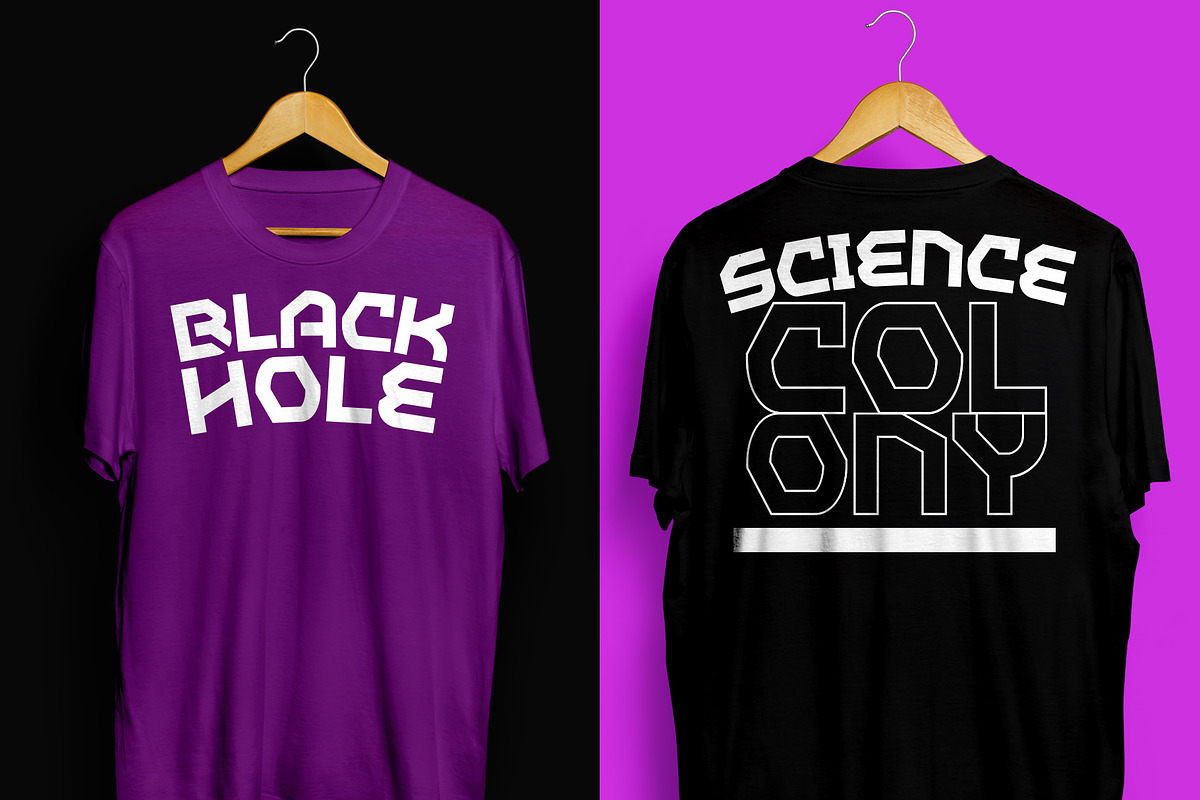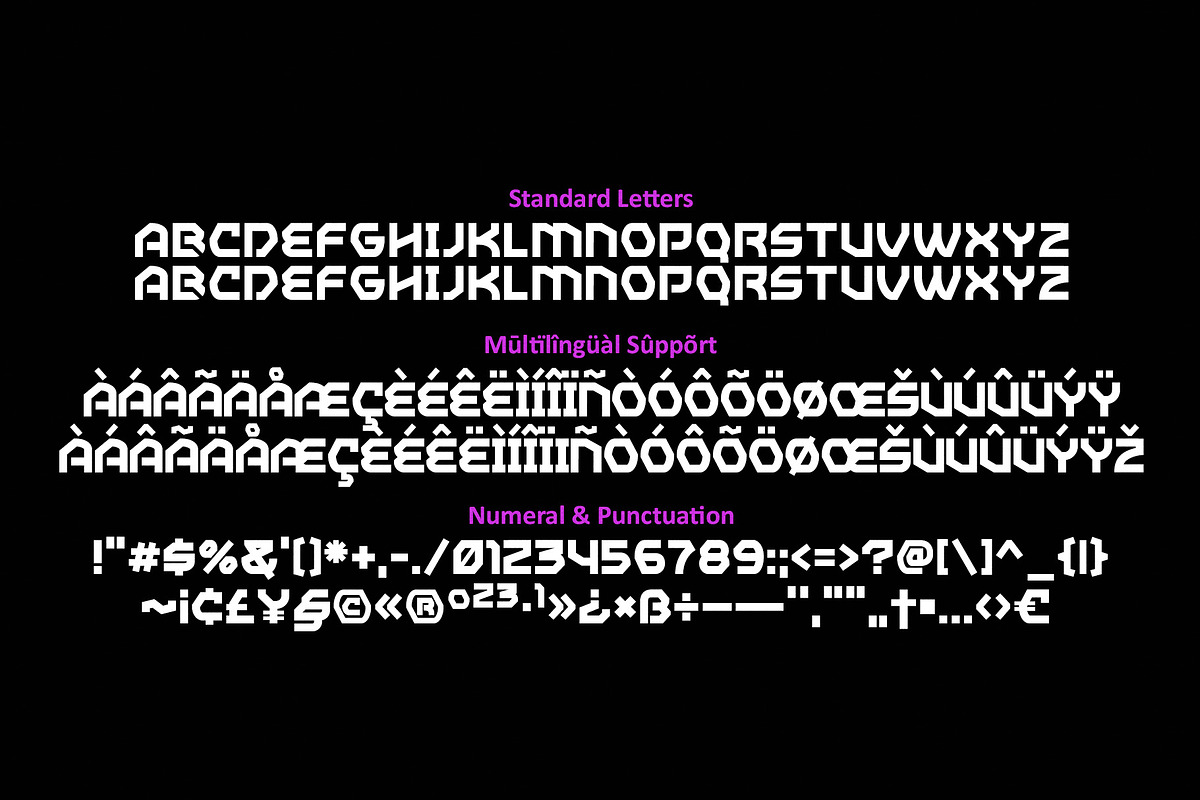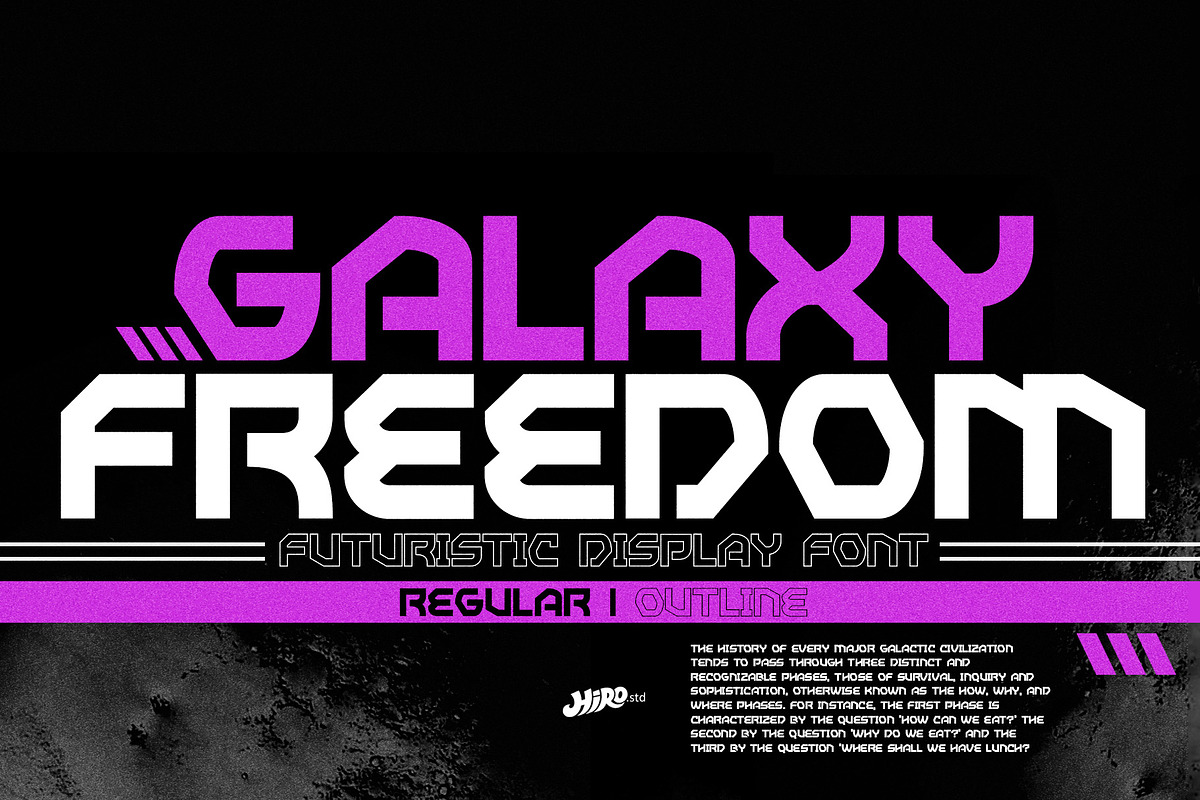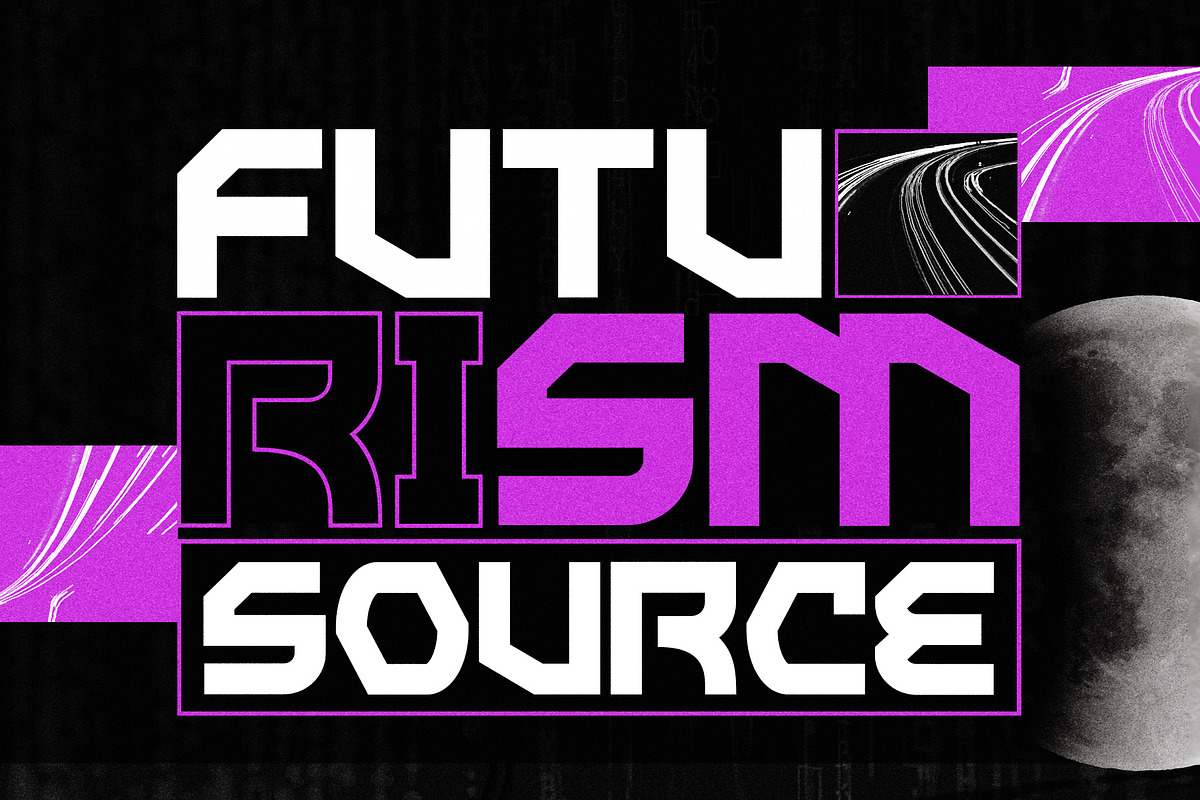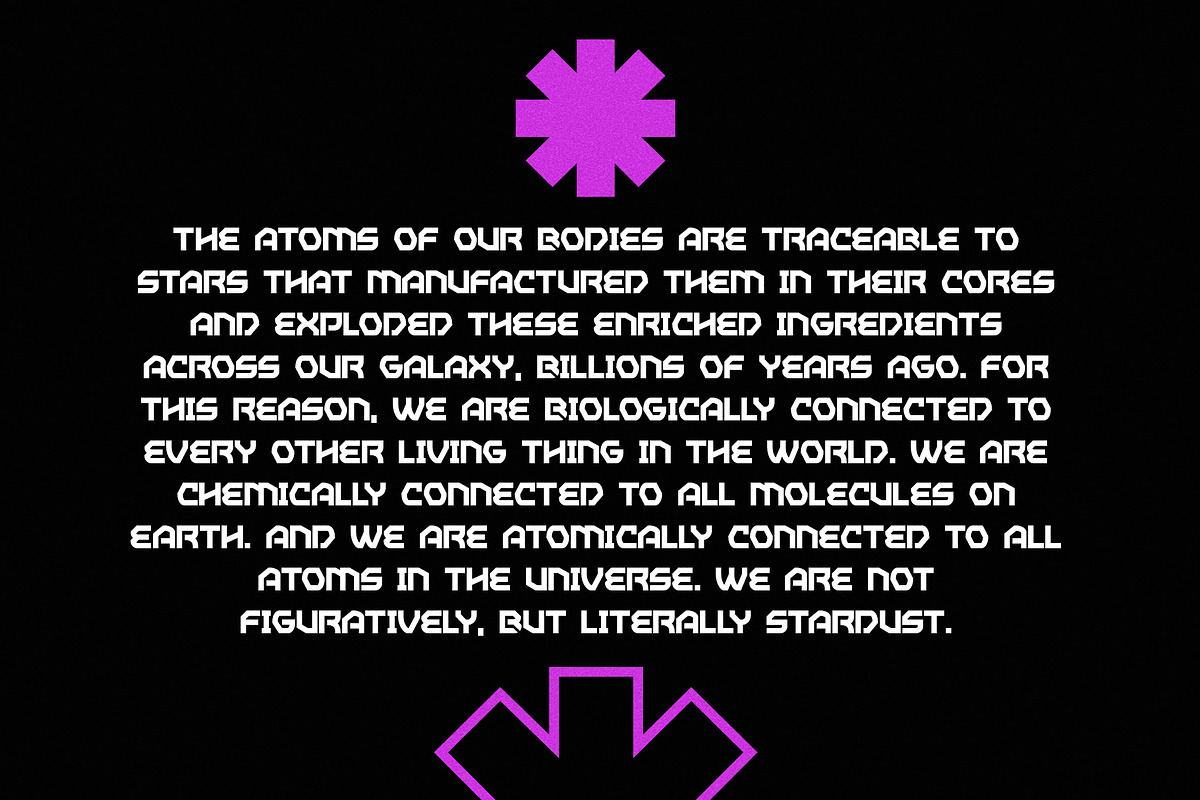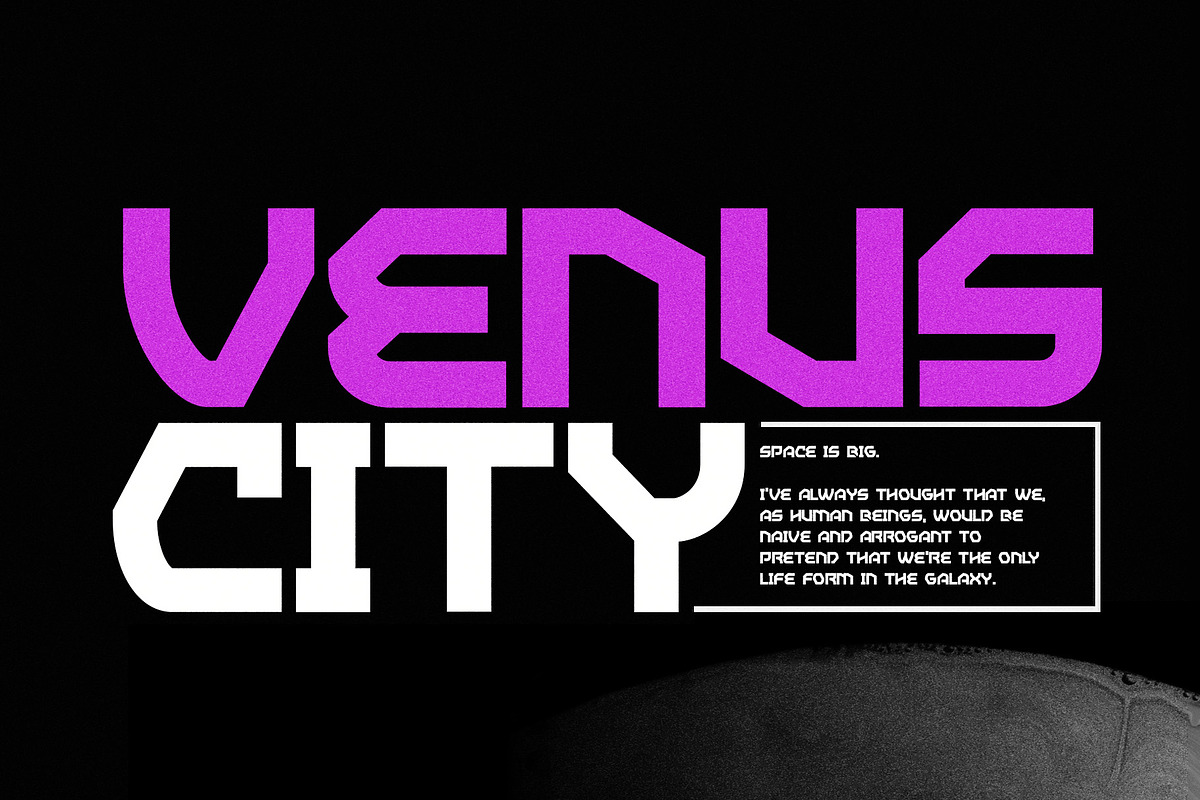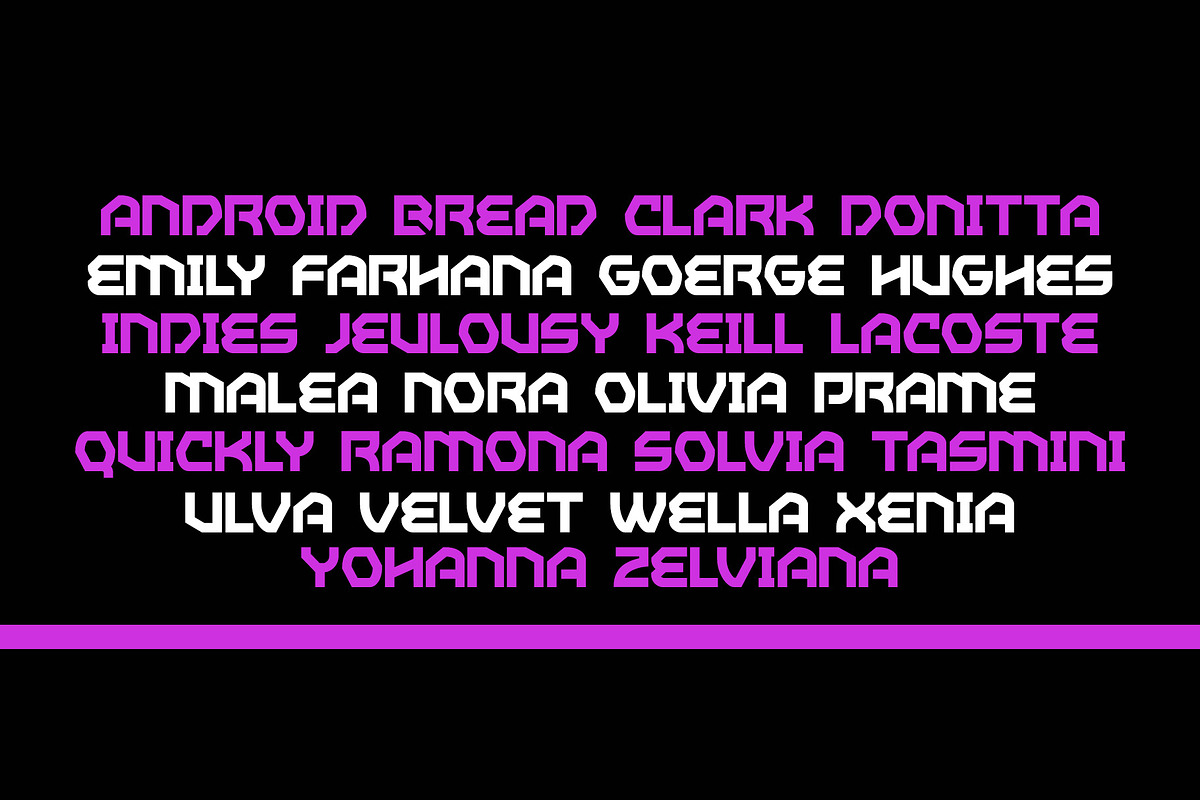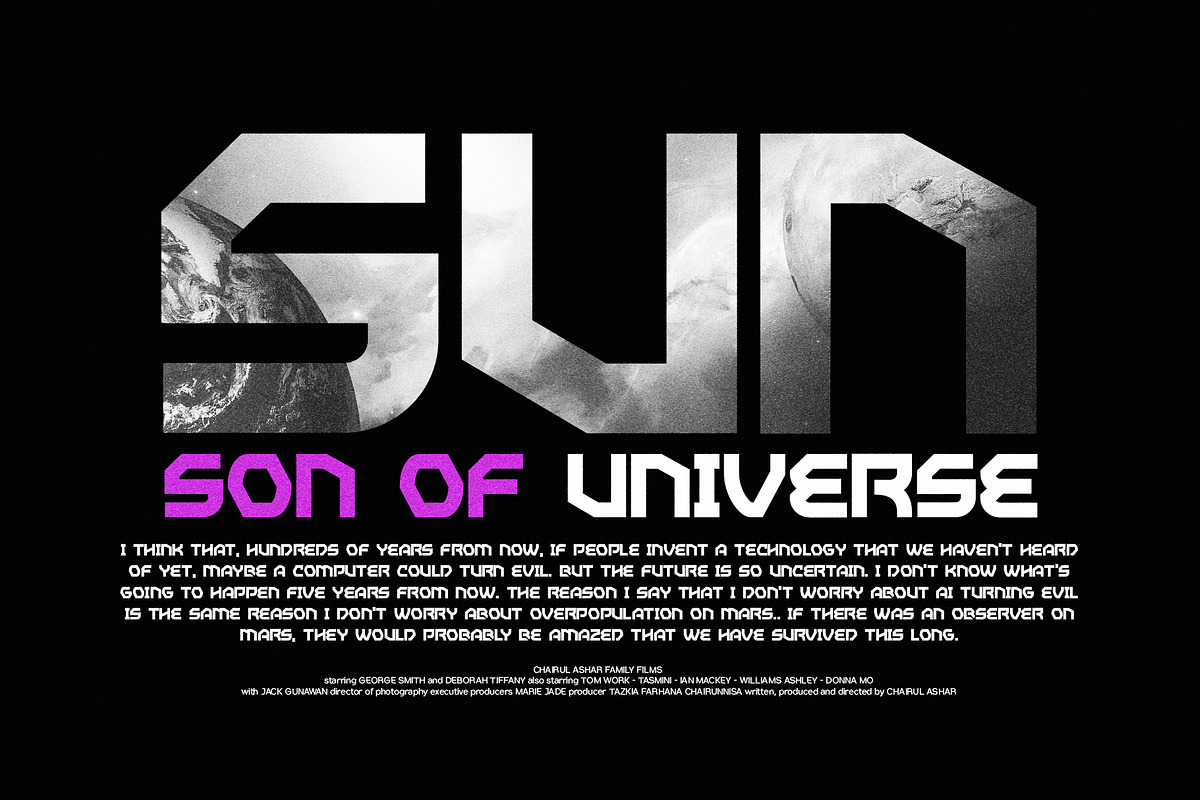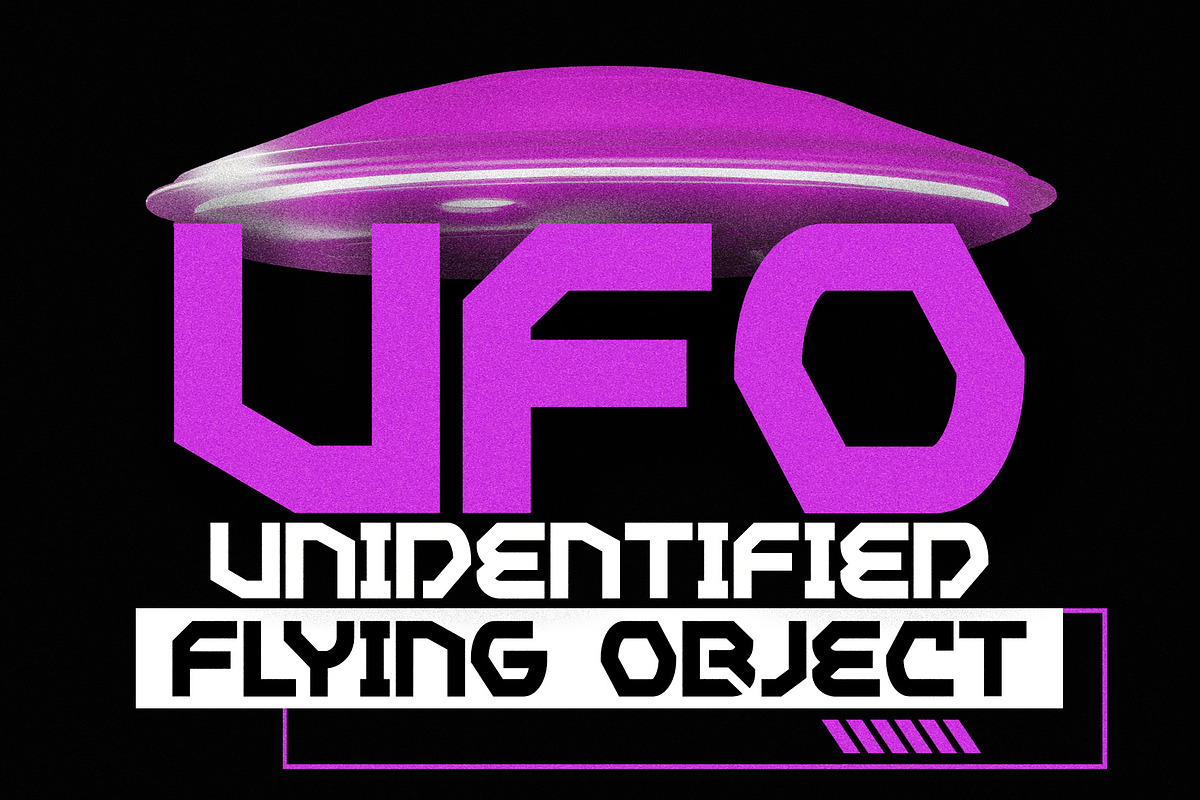
Galaxy Freedom - Futuristic Fonts
Galaxy Freedom is a futuristic display font.
This font describes about futurism, space, sci-fi, modern, simple, cyberpunk, clean and easy to use.
- Uppercase letters
USE Galaxy Freedom works great in movie title, game title, headline, logotype, labels, magazine, packaging, apparel, and any projects that need futuristic taste.